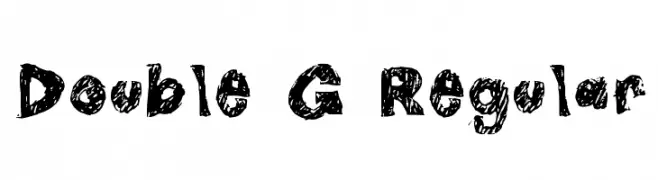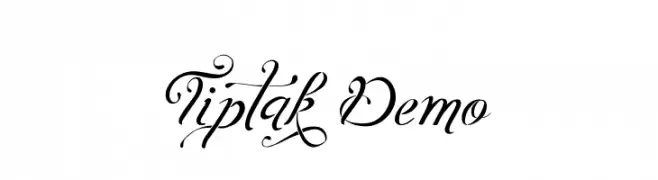
( Fonts by Giorgio Gutogo )
A bold, textured, hand-drawn font with a playful and artistic style.
A bold, geometric font with sharp angles and a modern aesthetic.
( CJ Cook - facebook.com/cjwcook )
A bold, brush-style font with an energetic and hand-painted look.
( Charlee Sathiraboot )
A whimsical, handwritten font with playful curls and decorative elements.
( Darrell Flood )
A bold, geometric font with a futuristic and energetic style.
( Darrell Flood )
A bold, angular font with a futuristic and geometric style.
( EvasUniqueFonts - Eva Barabas - www.etsy.com/ie/shop/DigitalTypefaceS )
An elegant script font with flowing cursive letters and ornate swashes.
( Federico Abuyé - www.federicoabuye.com.ar/ )
A pixelated, geometric font with a retro digital aesthetic.
( Jeanlouis David Amodio - www.jeanamodio.com )
A bold, hand-drawn font with a graffiti-like, expressive style.
( Linafis Studio - Ahmad Fashihullisan )
A playful, hand-drawn font with irregular, wavy lines and a casual style.